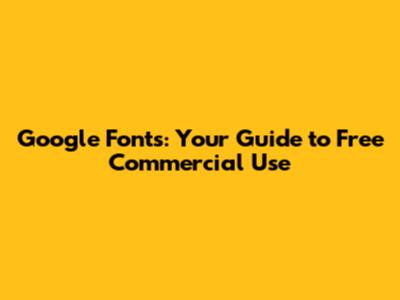
- Roboto: A clean and modern sans-serif that's great for body text and headlines. It's highly readable and works well in both print and digital formats. Roboto is known for its versatility and is a good choice for projects requiring a neutral and professional look. It's often used by tech companies and websites due to its clarity and ease of reading on screens. Its geometric design and open shapes make it highly legible at various sizes, making it an excellent option for long-form content.
- Open Sans: Another excellent sans-serif choice, Open Sans is known for its friendly and approachable feel. It's perfect for websites, apps, and branding materials. Open Sans is highly adaptable, and its simple design ensures readability even in small sizes. It's often selected for its balanced appearance and how well it integrates into different design aesthetics. Open Sans's clarity makes it great for user interfaces and content where readability is a priority.
- Lato: A well-balanced sans-serif with a warm and friendly feel. It's great for both body text and headlines. Lato has a clean and modern appearance that makes it ideal for a wide range of applications, from websites to print materials. Its design blends a friendly look with a professional feel, which makes it perfect for branding and marketing content. The font's versatility allows it to seamlessly fit into different design layouts.
- Montserrat: A versatile sans-serif inspired by the urban typography of the Montserrat neighborhood in Buenos Aires. It's great for headings, logos, and branding. Its geometric design gives it a modern, clean look. Montserrat is known for its strong visual appeal and ability to make a statement. It is often employed in advertising and on websites where a bold and modern aesthetic is required.
- Poppins: A geometric sans-serif that's both modern and approachable. It's an excellent choice for websites, apps, and branding. Poppins is very popular because of its wide range of weights and styles. Its clean design and excellent readability make it perfect for various applications. Poppins' modern aesthetic and versatility contribute to its widespread use in different designs.
- Raleway: An elegant sans-serif with a slightly rounded shape, perfect for headlines and display text. It's known for its sophistication and works well in various design projects. Its clean lines and refined design add a touch of class to any project. Raleway's versatility and attractive aesthetic make it an excellent choice for branding and design.
Hey everyone! Ever wondered about Google Fonts and if you can use them for your business or projects? Well, you're in the right place! We're diving deep into Google Fonts, specifically focusing on their commercial use. I'm going to break down everything you need to know, so you can confidently use these amazing fonts without any legal worries. Let's get started!
Understanding Google Fonts
Google Fonts is like a massive library of typefaces, completely free and open-source. It's a goldmine for designers, developers, and anyone who needs a great font for their work. The best part? It's super easy to use! You can embed them directly into your website or download them for use in your design software. This means no more settling for boring default fonts or paying hefty licensing fees. Google Fonts has something for everyone, from clean and modern sans-serifs to elegant serifs and playful handwritten styles. The platform is constantly updated, with new fonts added regularly. It’s a community-driven project, with contributions from designers all over the world, ensuring a diverse and high-quality collection. The fonts are optimized for web use, meaning they load quickly and look great on any device. Plus, Google Fonts supports various languages, making it a valuable resource for global projects. Using Google Fonts, you can significantly enhance the visual appeal and readability of your projects while staying within budget. Google Fonts is also a great option to boost your SEO strategy. Google Fonts is designed with SEO best practices in mind, so integrating the fonts into your website won't negatively impact your search engine rankings. Google Fonts provides a range of options, from classic typefaces like Roboto and Open Sans to unique and creative fonts that will make your brand or design stand out. With such a wide variety to choose from, Google Fonts gives you the power to find the perfect font for any project. Whether you're working on a website, a mobile app, a print design, or a presentation, Google Fonts provides the tools you need to create visually appealing and effective designs.